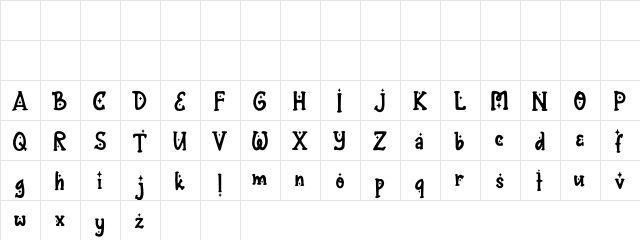
Fontarian Sparkling Regular
| Designer | Lia Ari Wijayanti |
Design Context for Fontarian Sparkling Typeface
Fontarian Sparkling is a composed and adaptable typeface that performs quietly and consistently across a wide range of design contexts.